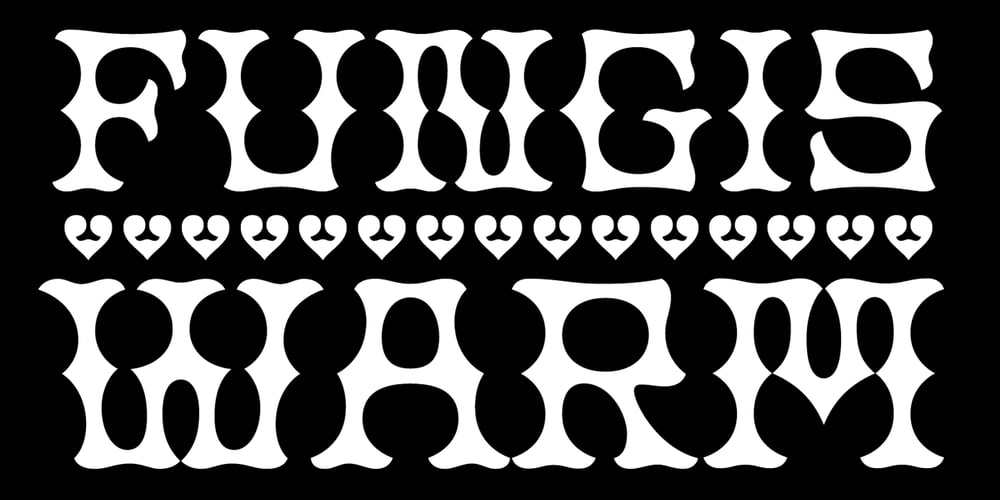
Fungis Font Family was designed by published by Ivan Petrov. Fungis contains 1 styles and family package options. Fungis is a somewhat �brother� of Fungia. These two typefaces were conceived simultaneously as an experiment on designing typeface based on natural shapes. In both cases it was mushrooms. Of course the main theme of these typefaces is not mushrooms itself (it was just a start point) but the interaction between form and counterform. In spite of unquestioning individuality the font has some associations with wood typefaces from wild west, typefaces from circus posters of 19th century and even slight feeling of gothic. The font can be useful in different cases: posters, titles, book covers, billboards, street signs, magazine spreads and all situations that demand expressive typography.